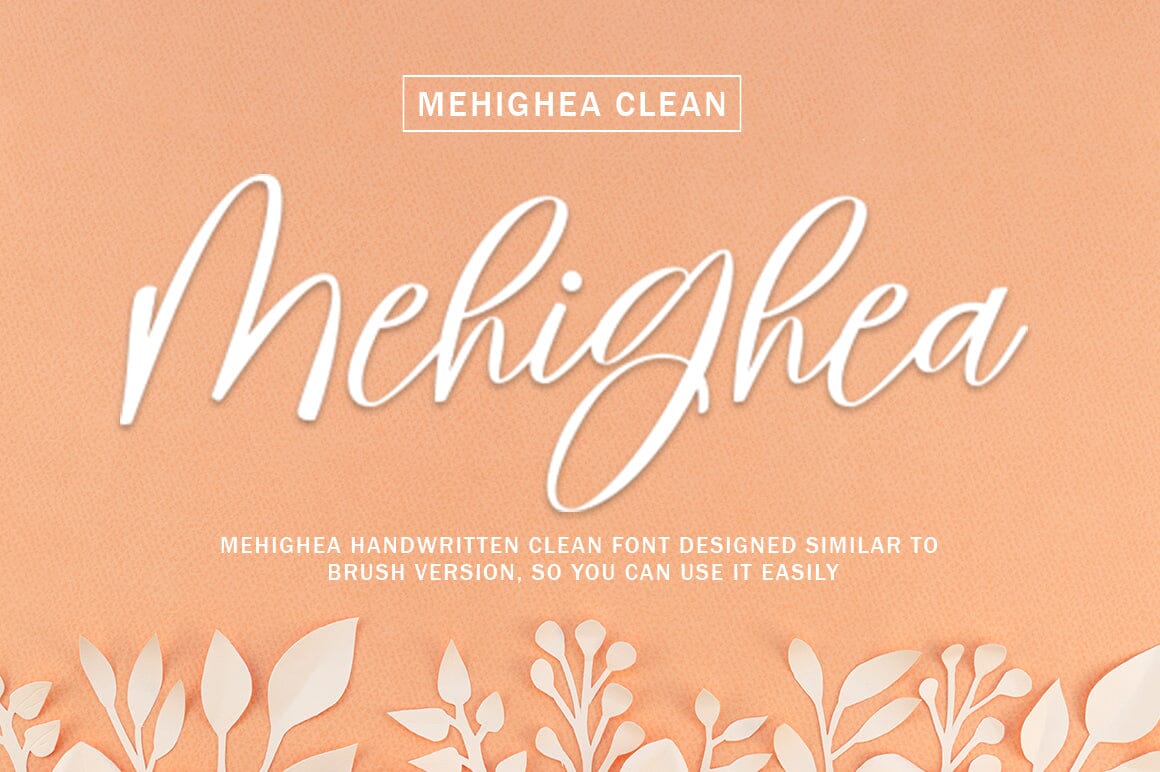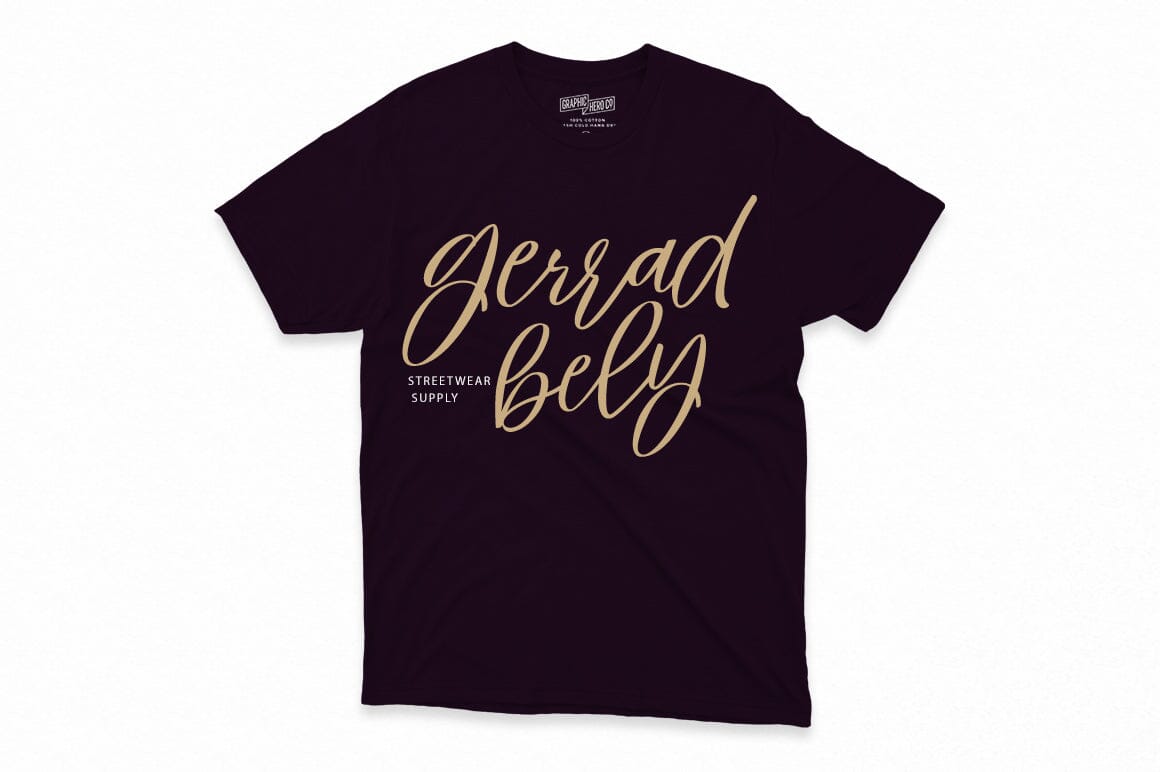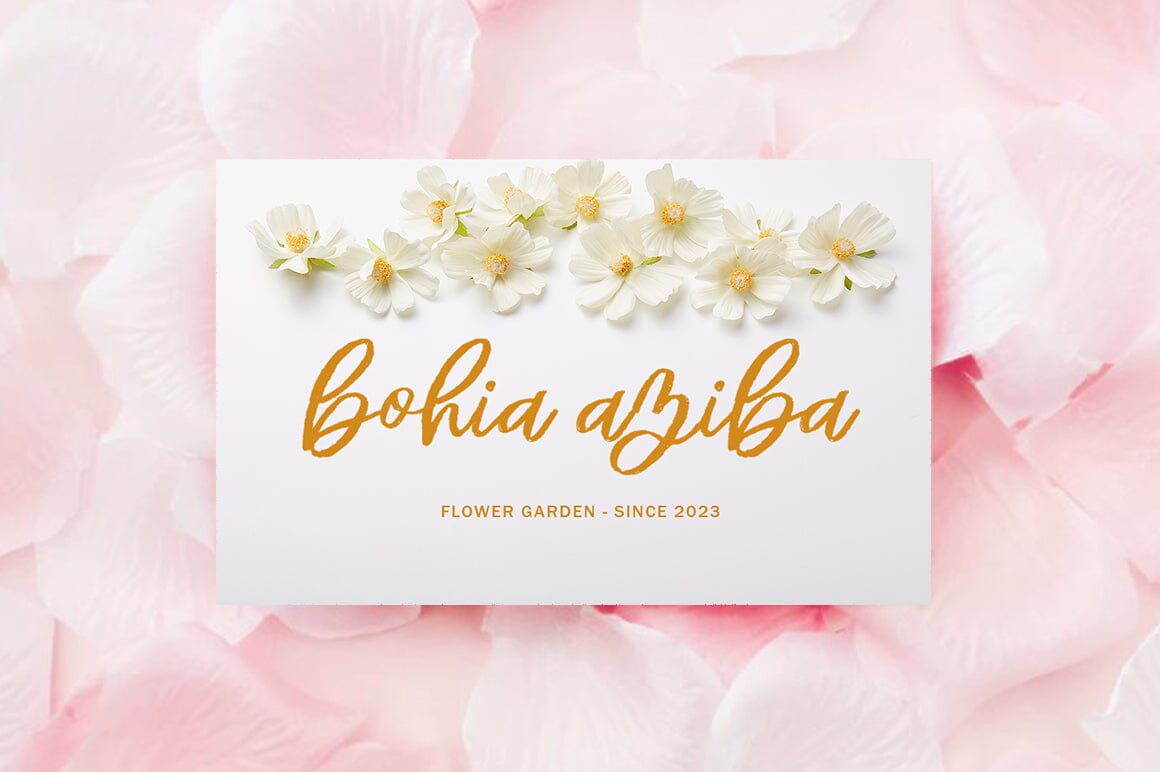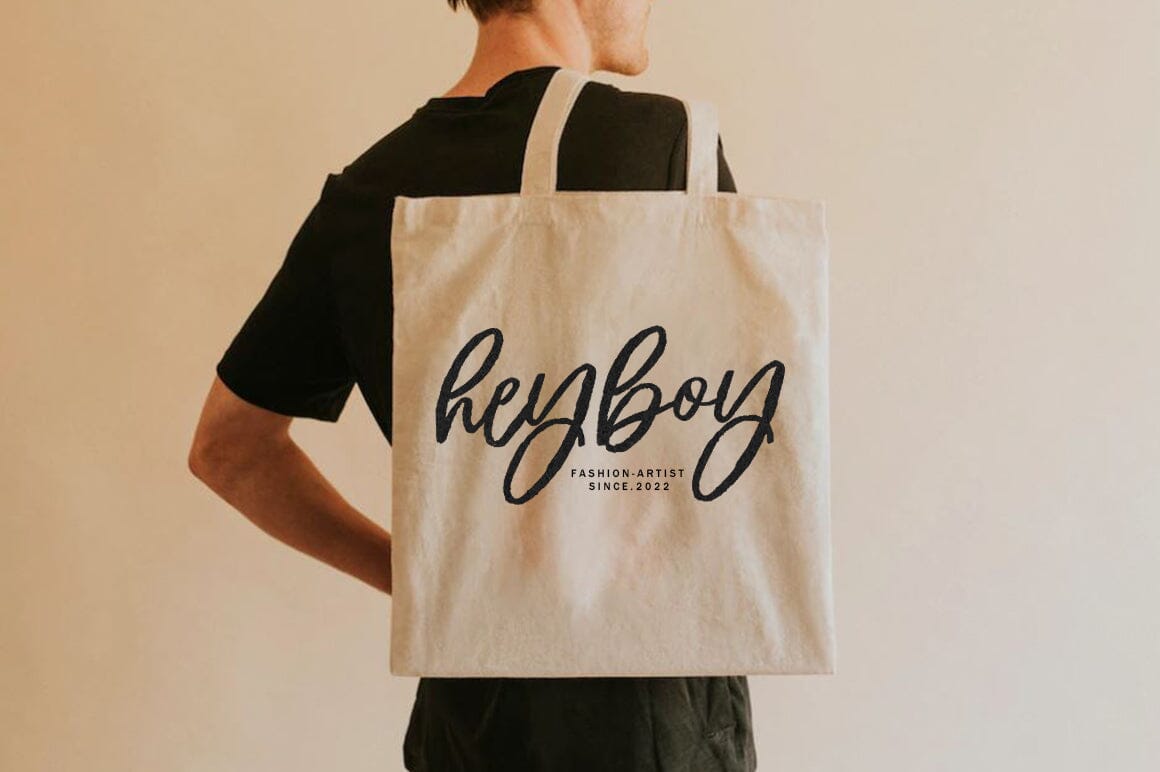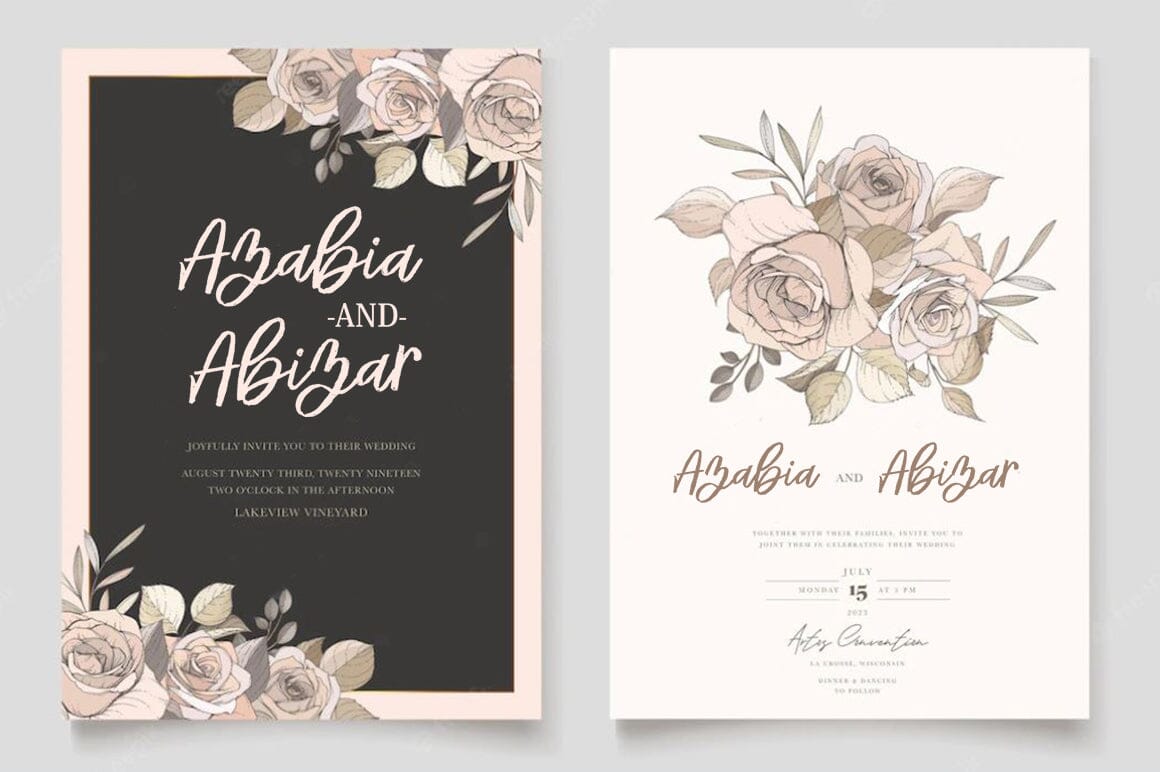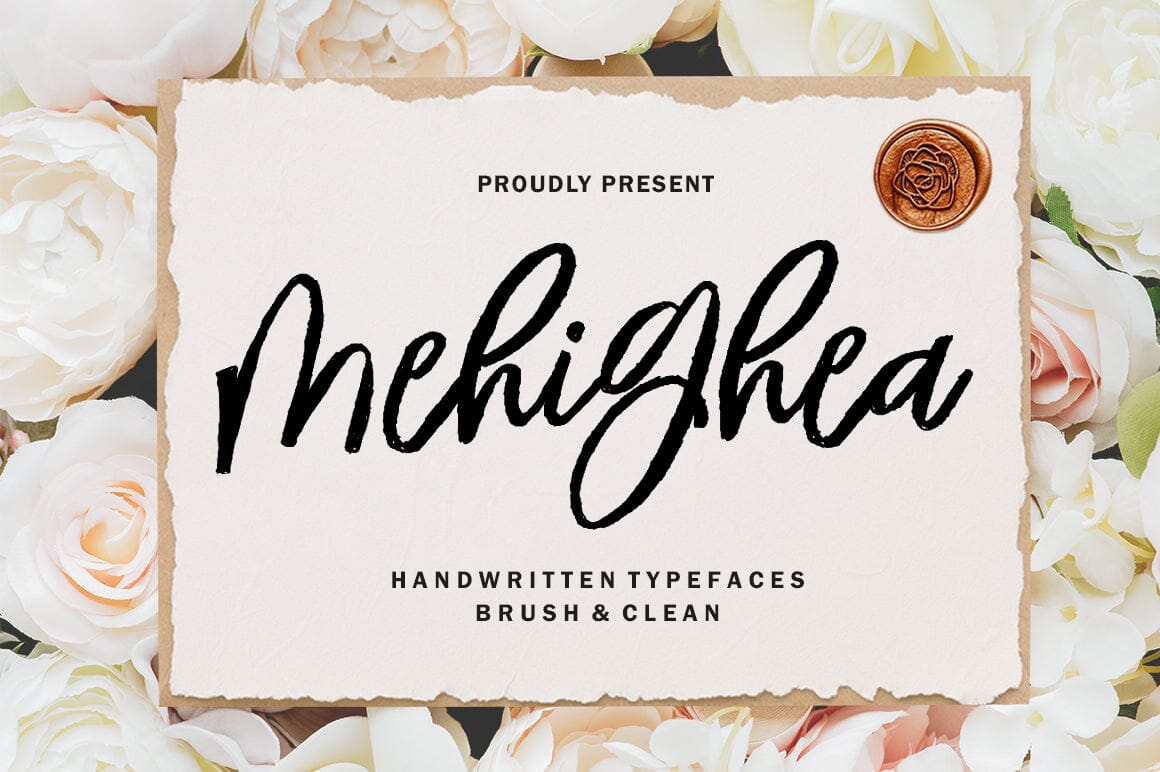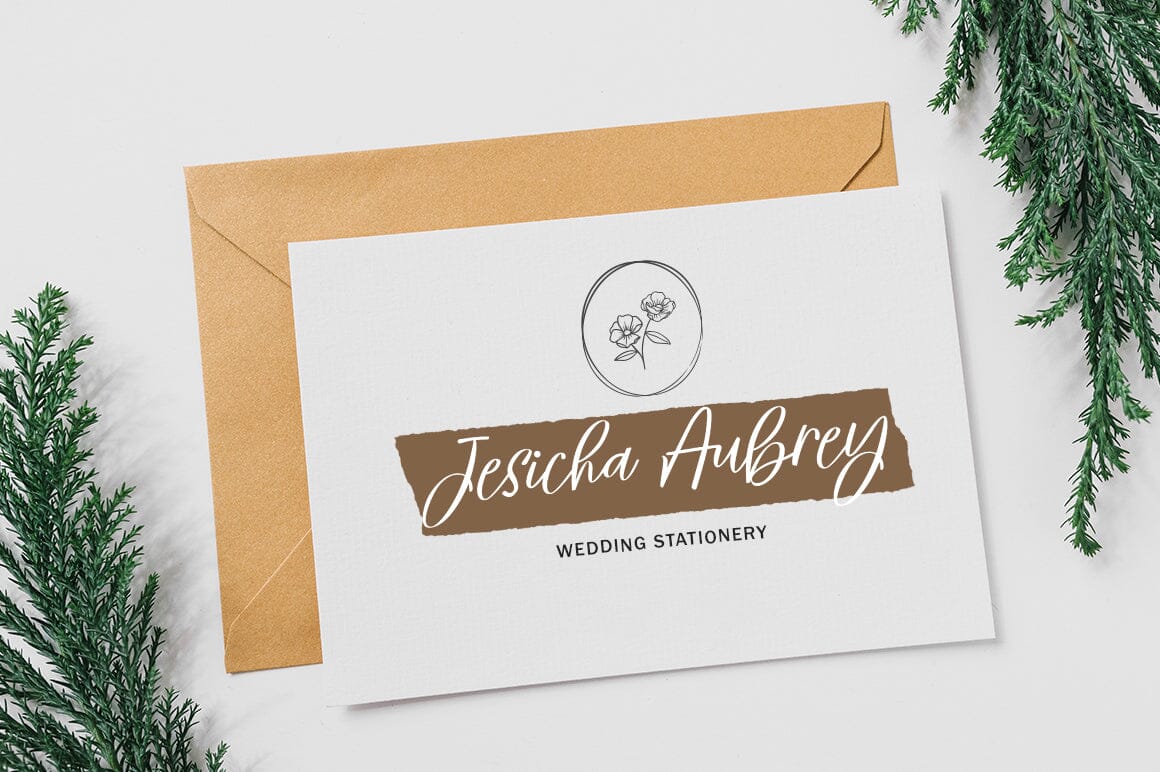
Mehighea Script
About Mehighea Script
Mehighea Regular and Mehighea Clean are modern font sets featuring an organic, dynamic and energetic style. They can be used for a variety of purposes, such as titles, signatures, logos, correspondence, wedding invitations, letterheads, nameplates, labels, newsletters, posters, badges and much more. To enable the OpenType Stylistic alternative, you need a program that supports OpenType features such as Adobe Illustrator CS, Adobe Indesign & CorelDraw X6-X7, Microsoft Word 2010 or a later version. Contains full set: Uppercase Lowercase binder Punctuation number multilingual support. Thank You 🙂